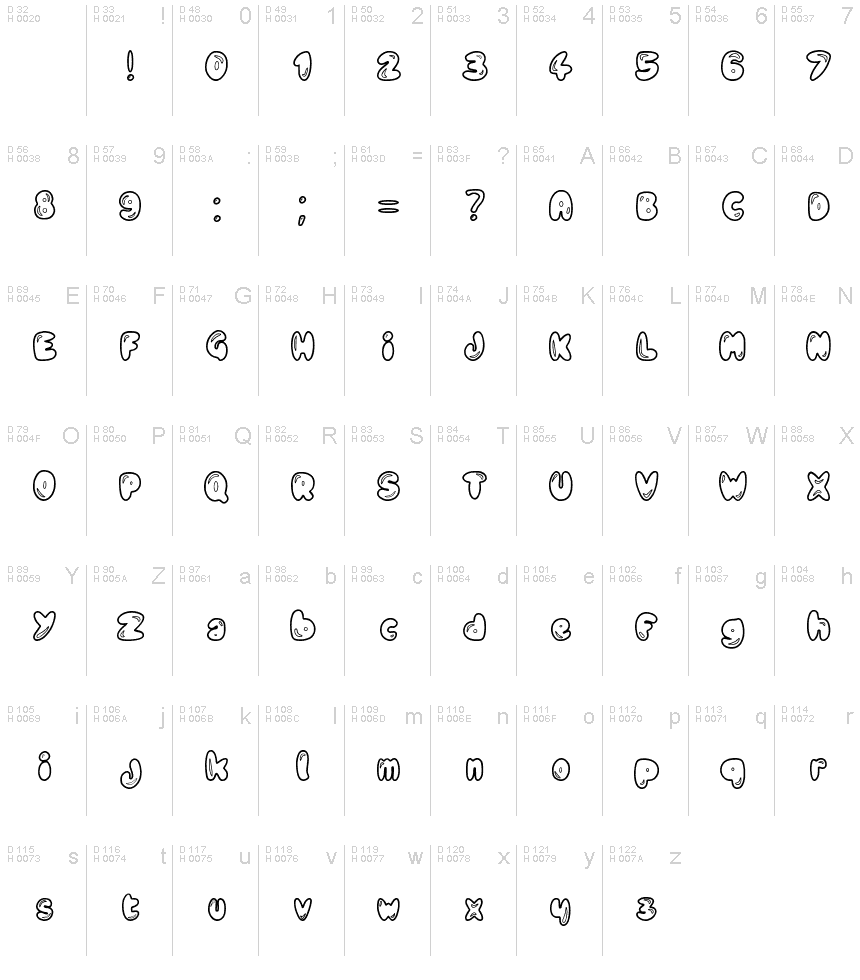
Blobbles Regular
Introducing Blobbles, a bold display font by Ehsan Abdullah with a cartoon bubble-style. This fun and vibrant font is perfect for creating eye-catching titles, posters, logos, cards and more. It's sure to add a unique touch to any project!